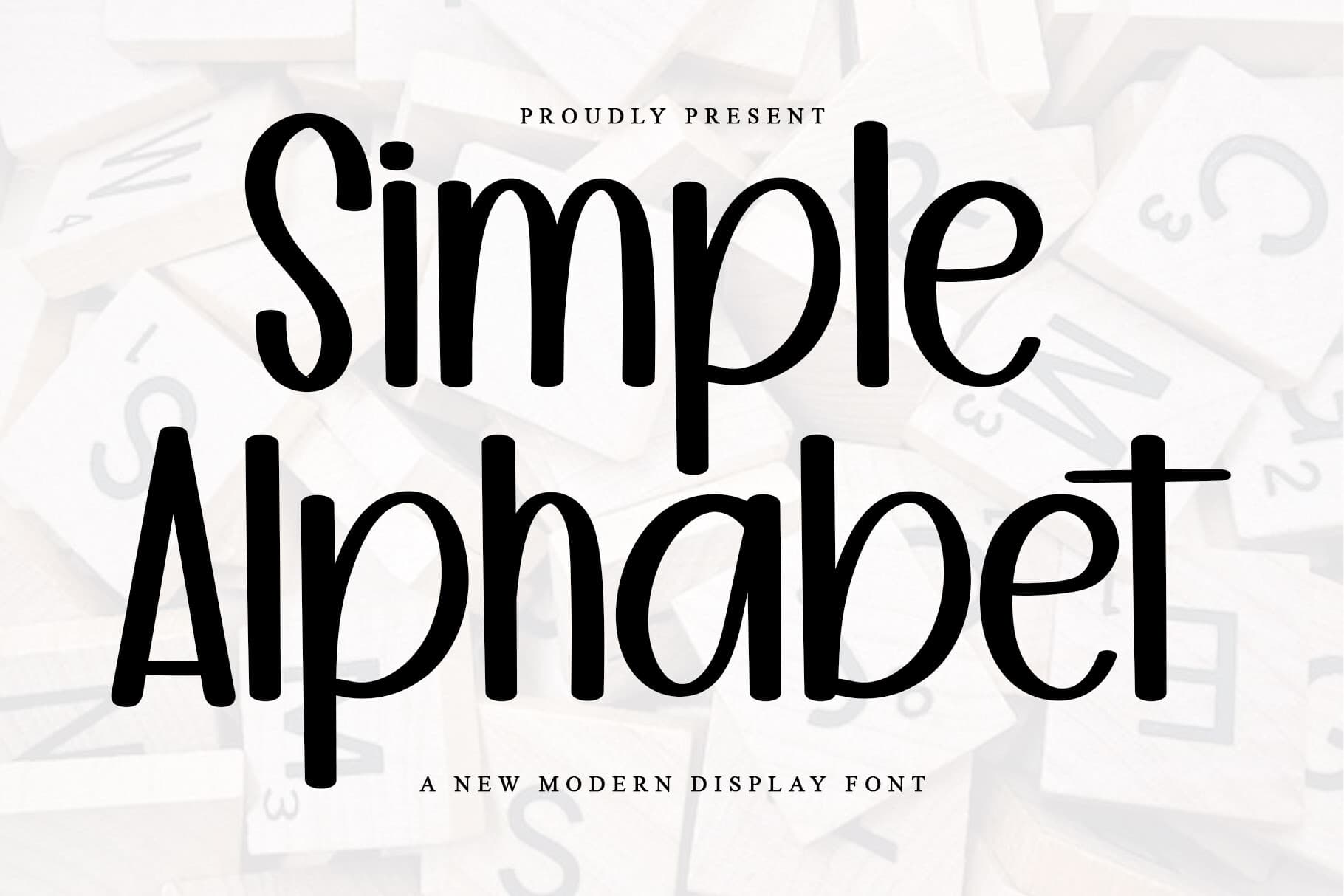
Create Cheerful Holiday Designs with the Simple Alphabet Typeface As the holiday season approaches, many people search for ways to infuse charm and joy into their festive projects. Whether you’re designing greeting cards, gift labels, or other holida...